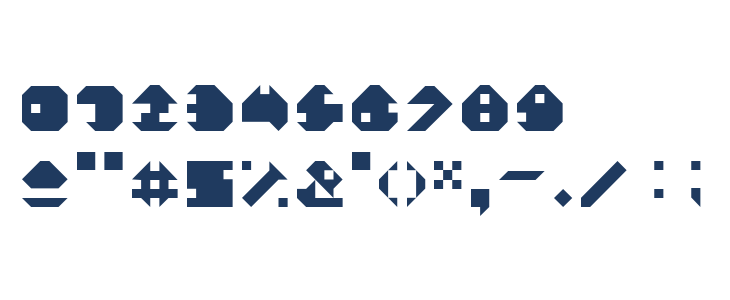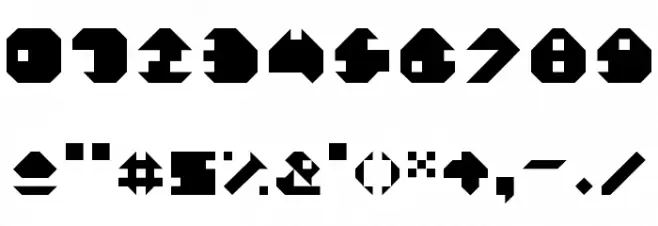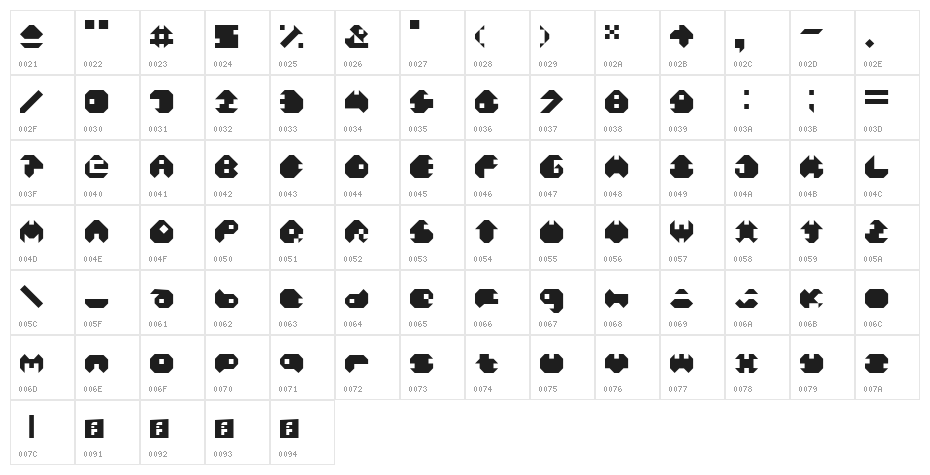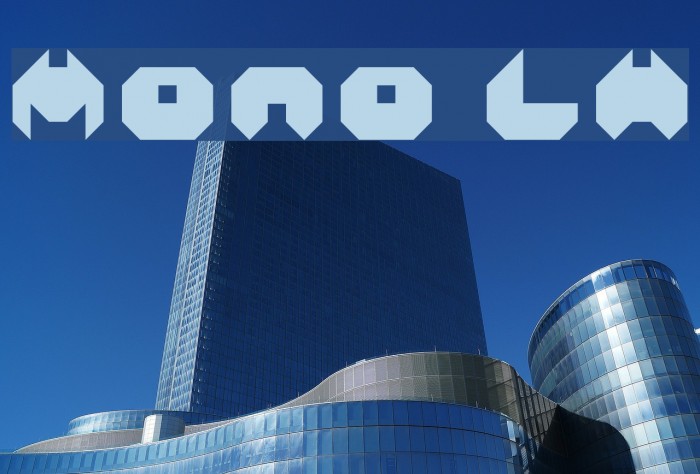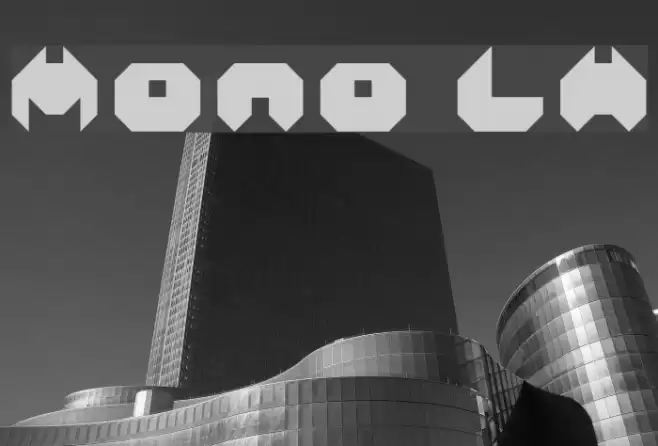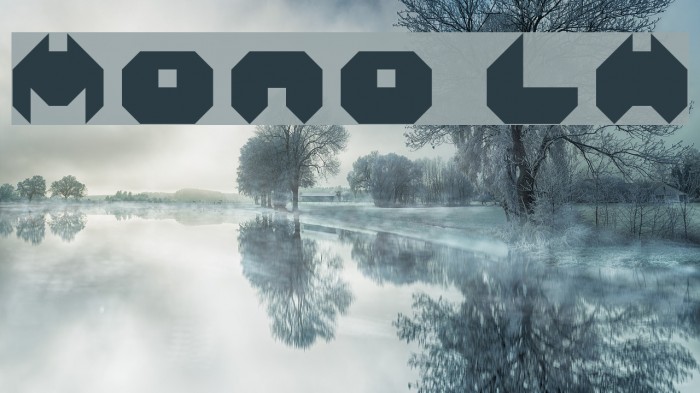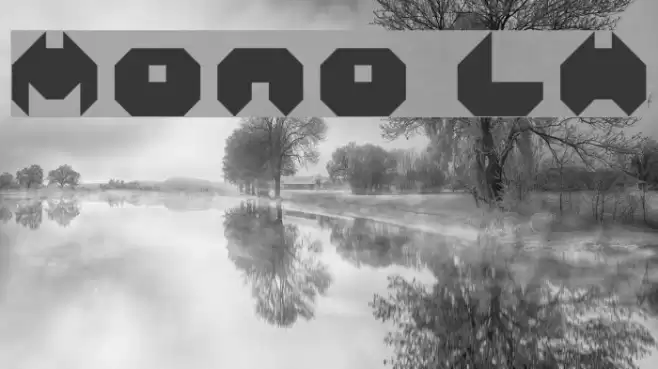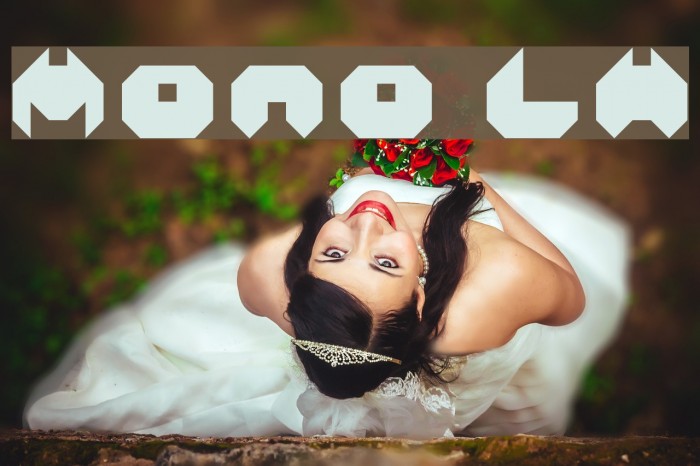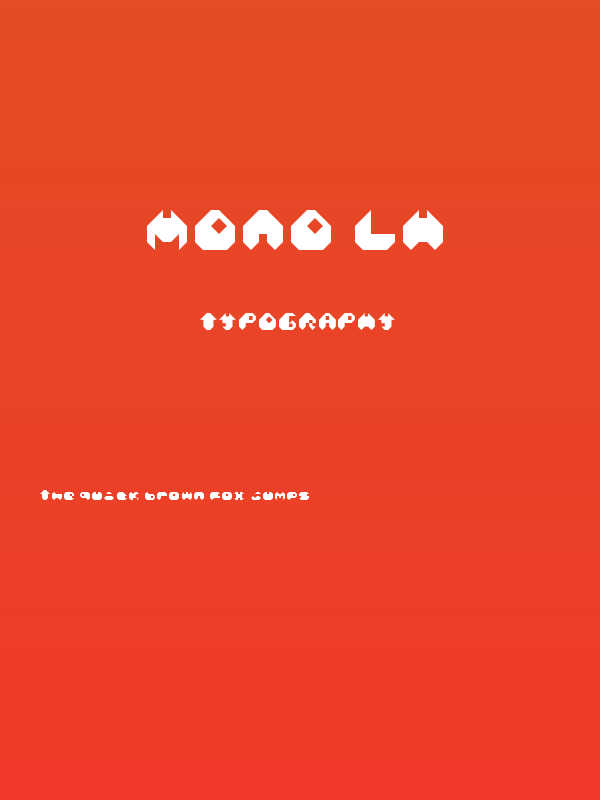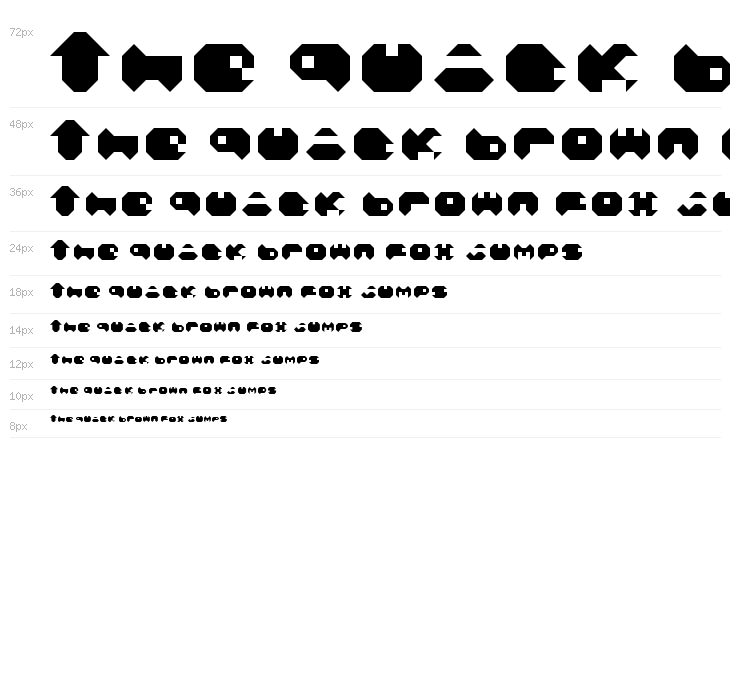
Mono LH Font
Mono LH Description
This font features a bold, geometric design with a strong emphasis on angular shapes and sharp edges. Each character is constructed with a series of straight lines and corners, creating a futuristic and digital aesthetic. The uppercase and lowercase letters maintain a consistent style, with the lowercase being slightly more compact. Numbers and special characters follow the same design principles, ensuring uniformity across all glyphs. The font's unique style makes it stand out, ideal for projects that require a modern and edgy look.
| Proposed Projects | Ideal for digital art, tech branding, video game design, and modern posters. |